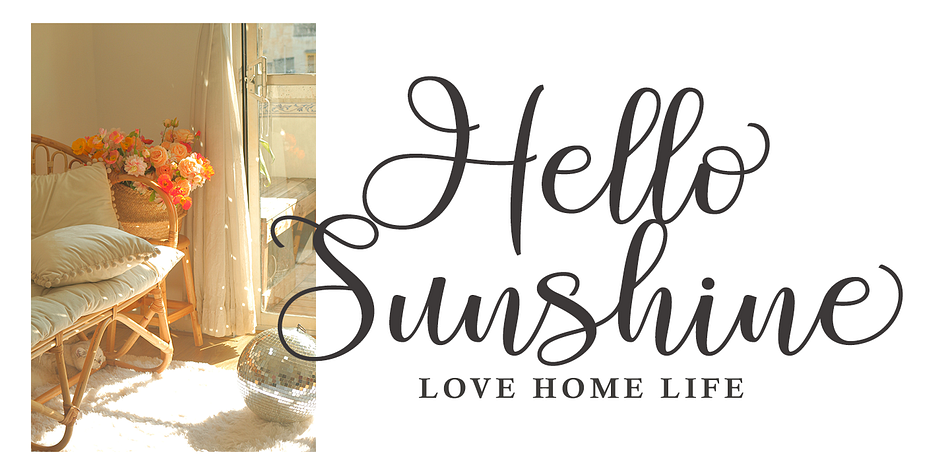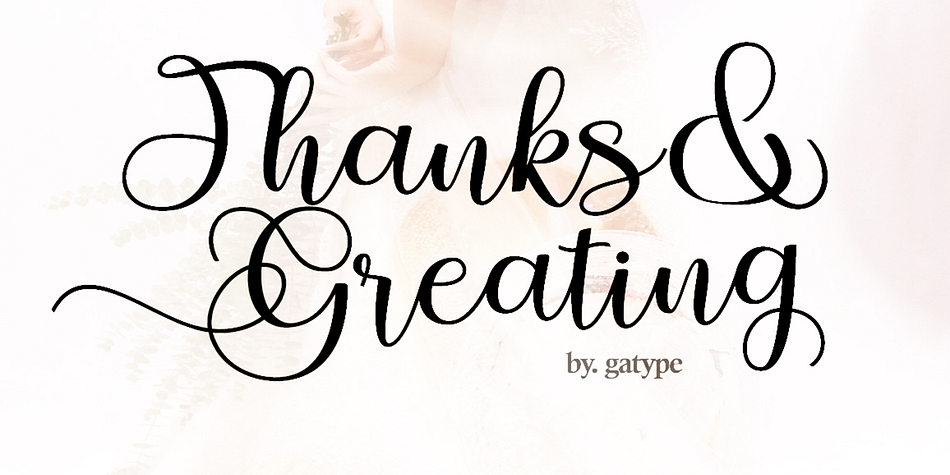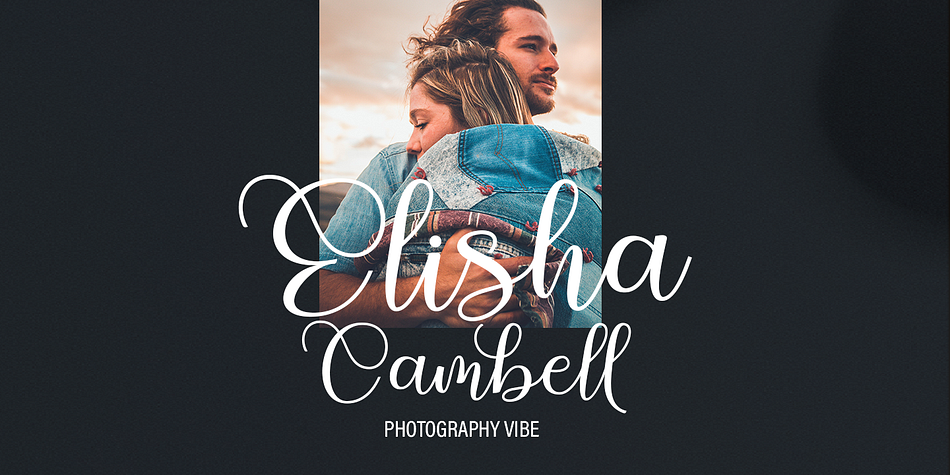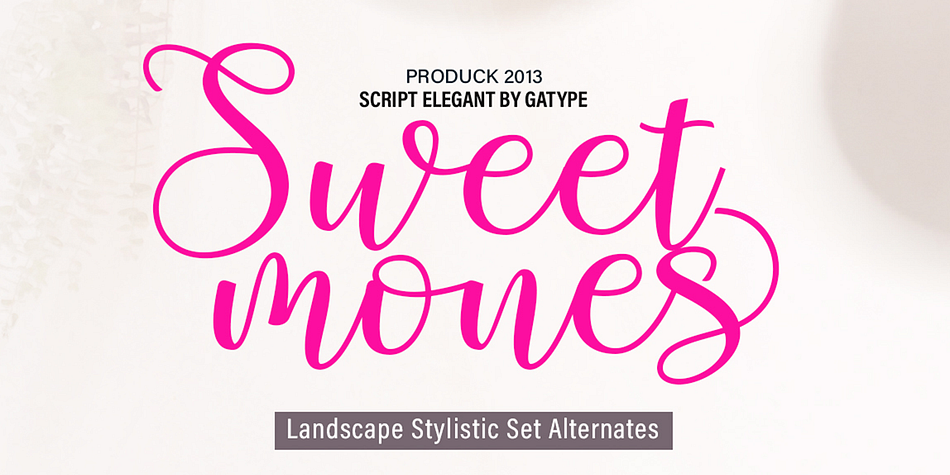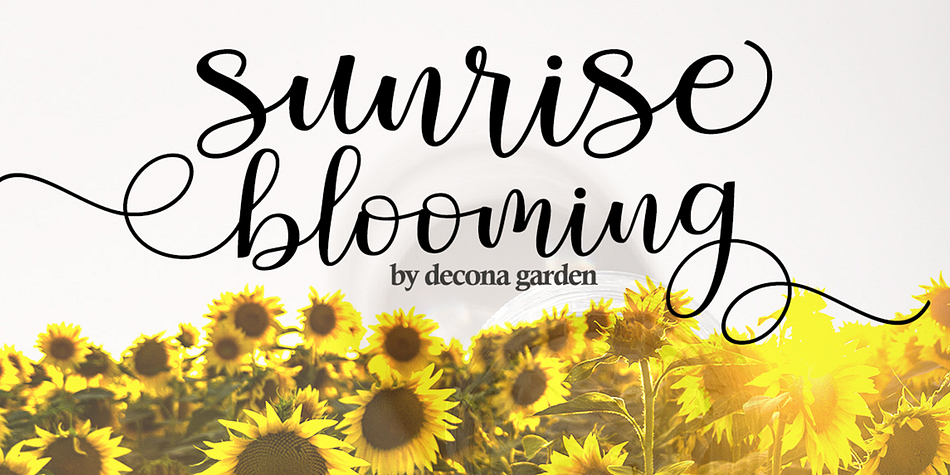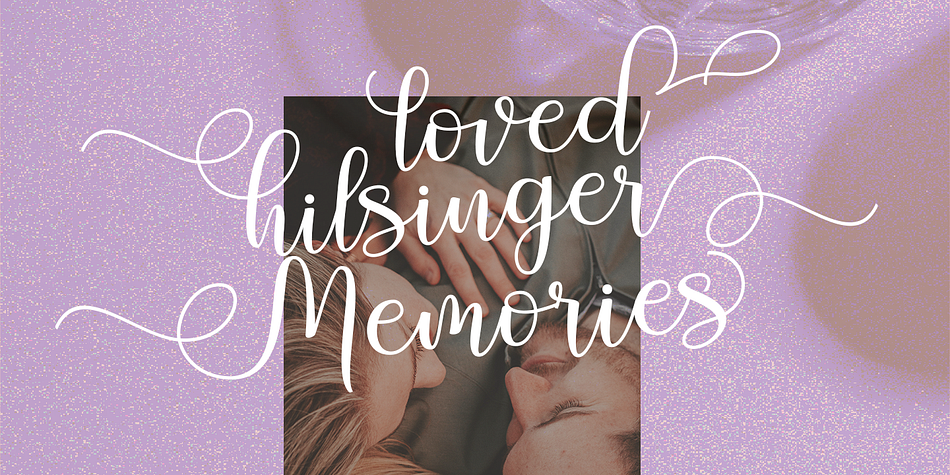
Sweet Mones
Sweet Mones is a modern calligraphy font family published by Gatype.
Introducing Sweet Mones for your better work. With a classy and natural handwriting style, it features a classy and chic typeface. Sweet Mones is best used for a variety of designs, such as posters, banners, logos, book covers, titles, print products, merchandise, social media, and more. Find out more ways to use this font by previewing the font.